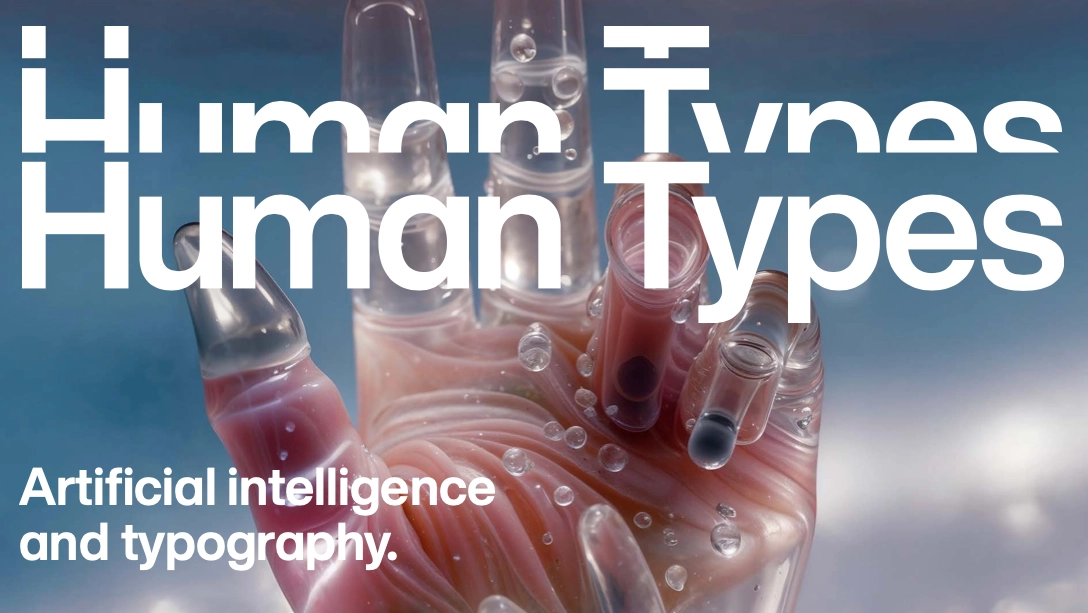
"AI will help mainstream type," says Monotype's Typography Trends report
Discover the future of type through this typographic oracle.
Monotype's annual Type Trends report is here, and as usual, it's packed full of inspiration and insight. This year's report focuses on how creatives are using design to inform, provoke, catalyse and create hope for us in times of crisis and change. It's divided into sections like 'freedom, law & order', 'life cycle', which addresses the "generational continuum" and 'hot & wet', which focuses on type and the environment.
The intro claims the report differs from others in that it doesn't look back at trends past, instead, it aims to be a "typographic oracle", which is a lovely turn of phrase. That doesn't mean it's forgotten the past entirely though, and the sections are full of glimpses of type past and present, as well as making predictions about the future. It's a more meaty type of typography trends report than others we've seen so far this year.
A section on kinetic typography, for example, looks at how type is becoming more and more dynamic, and being fused with sound and music in incredible ways. It feels like everyone is talking about sonic branding these days, and of course type can form a part of that.
No current trends report would be worth its salt if it didn't mention the topic of AI. Monotype adopts a positive tone, and talks about how AI will help mainstream type. It also includes a statement about how Monotype will not use fonts from its partners to train AI for new font designs.
Elsewhere, there are sections on freedom and its relationship to type, and how we need different forms of type at different stages of our lives, including an interesting section on how "people are old" and "designers are young". There's also a surprisingly rousing passage about hope in the section on conflict and peace.